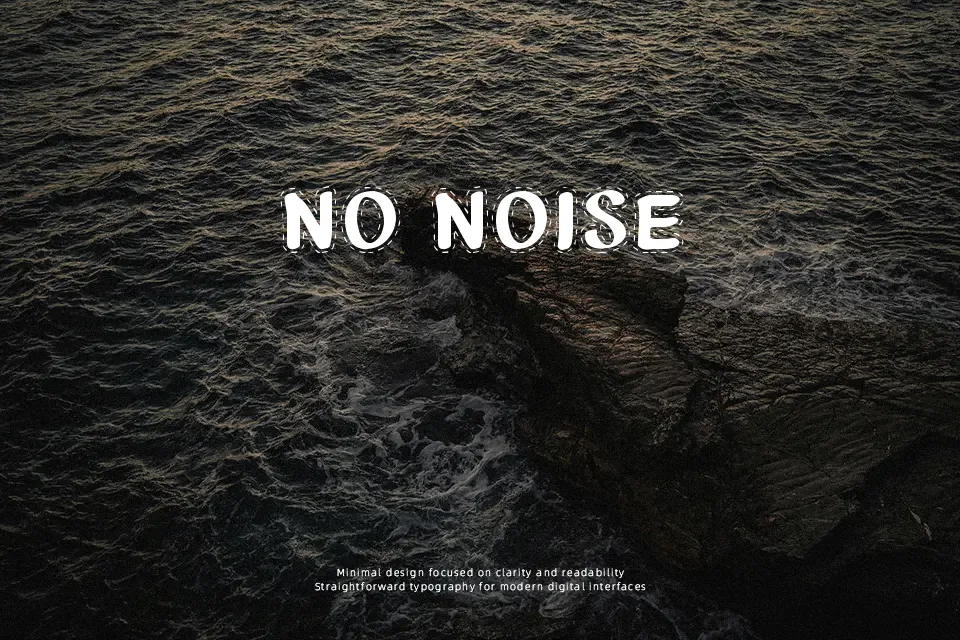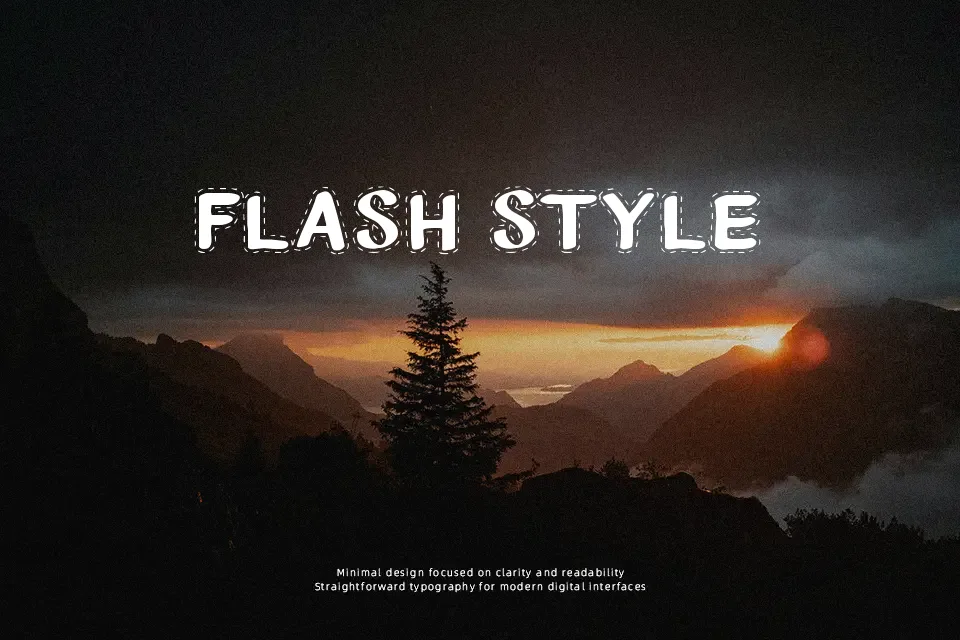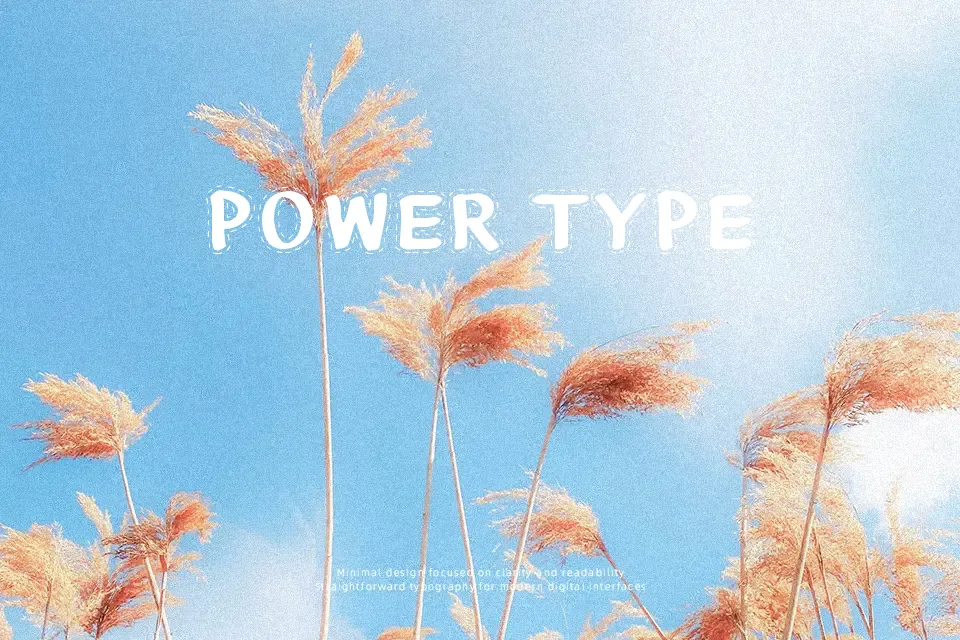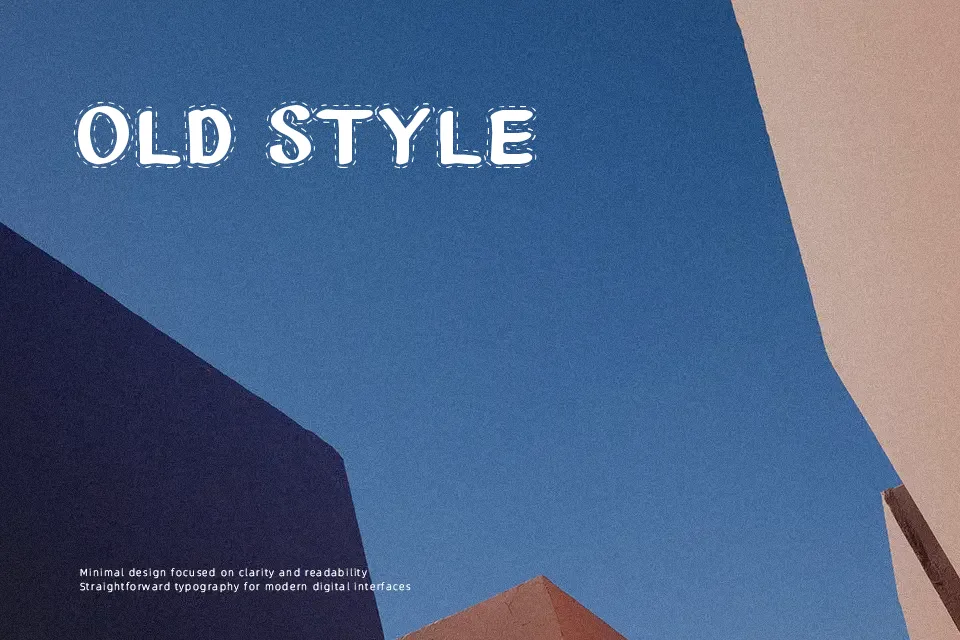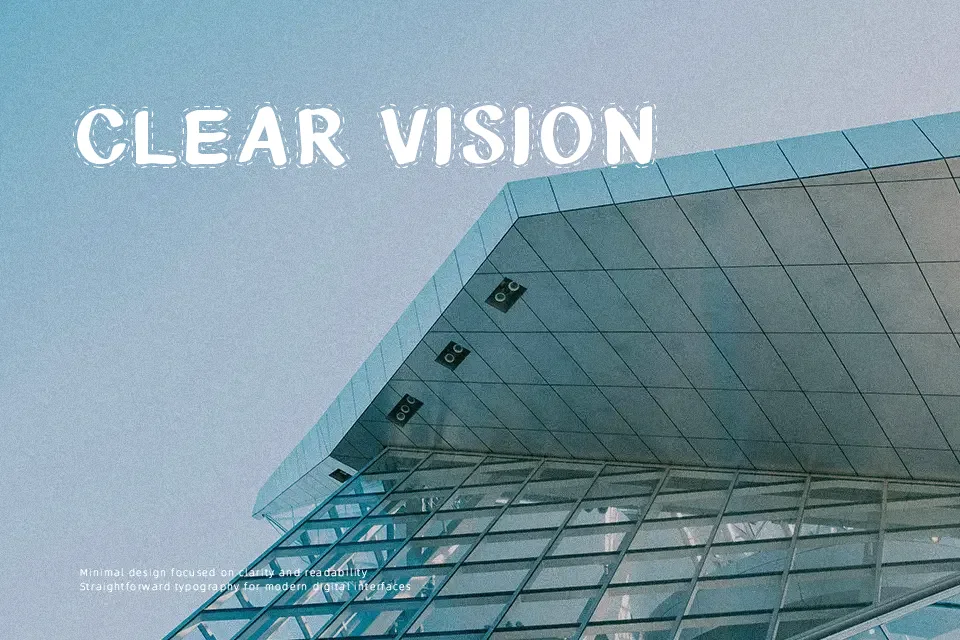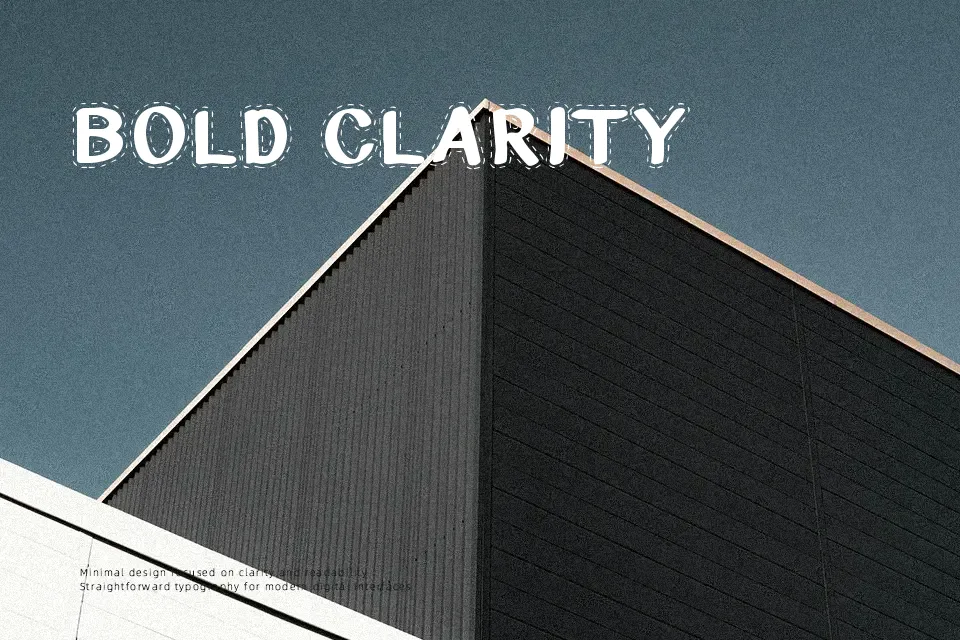
CF National Stitches Font
A sports-themed apparel layout or craft merchandise graphic benefits from the bold presence of CF National Stitches Font. The letterforms feature thick uniform strokes bordered by precise dashed stitching lines, creating an athletic varsity aesthetic with strong visual rhythm. Generous letter spacing and balanced proportions keep individual characters distinct and well defined in display arrangements. While the design delivers exceptional impact for jersey numbers, headlines, and embroidery mockups, the intricate stitch detailing diminishes significantly at smaller point sizes. Consequently, the typeface remains less suitable for continuous body text, where decorative outlines cause visual clutter and compromise reading comfort.
sports team jerseys,athletic apparel graphics,craft embroidery patterns,varsity poster headlines
continuous body text,mobile application menus,dense corporate documents,small caption labels
Perfect for branding, fashion, and headline, with a bold and decorative style.